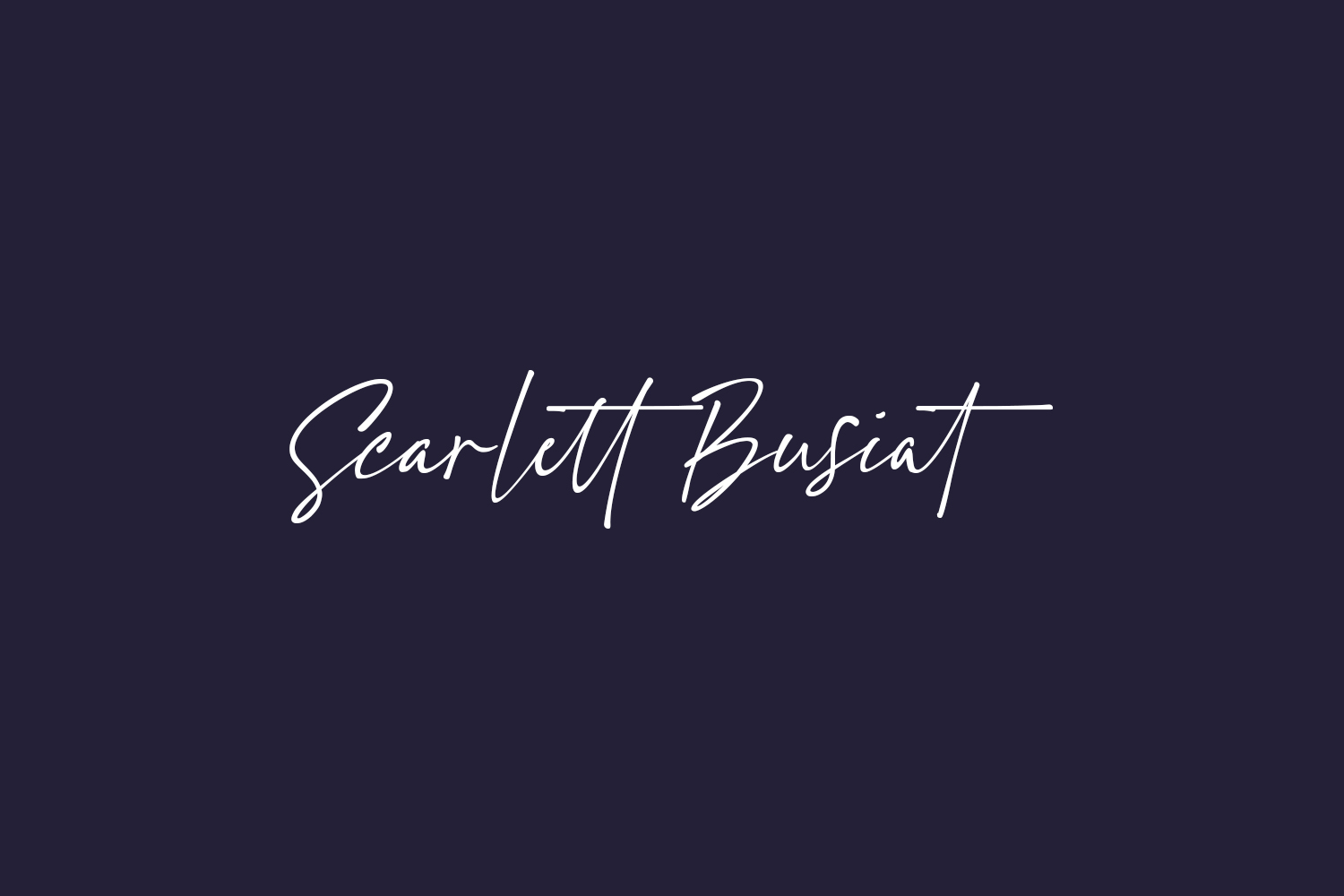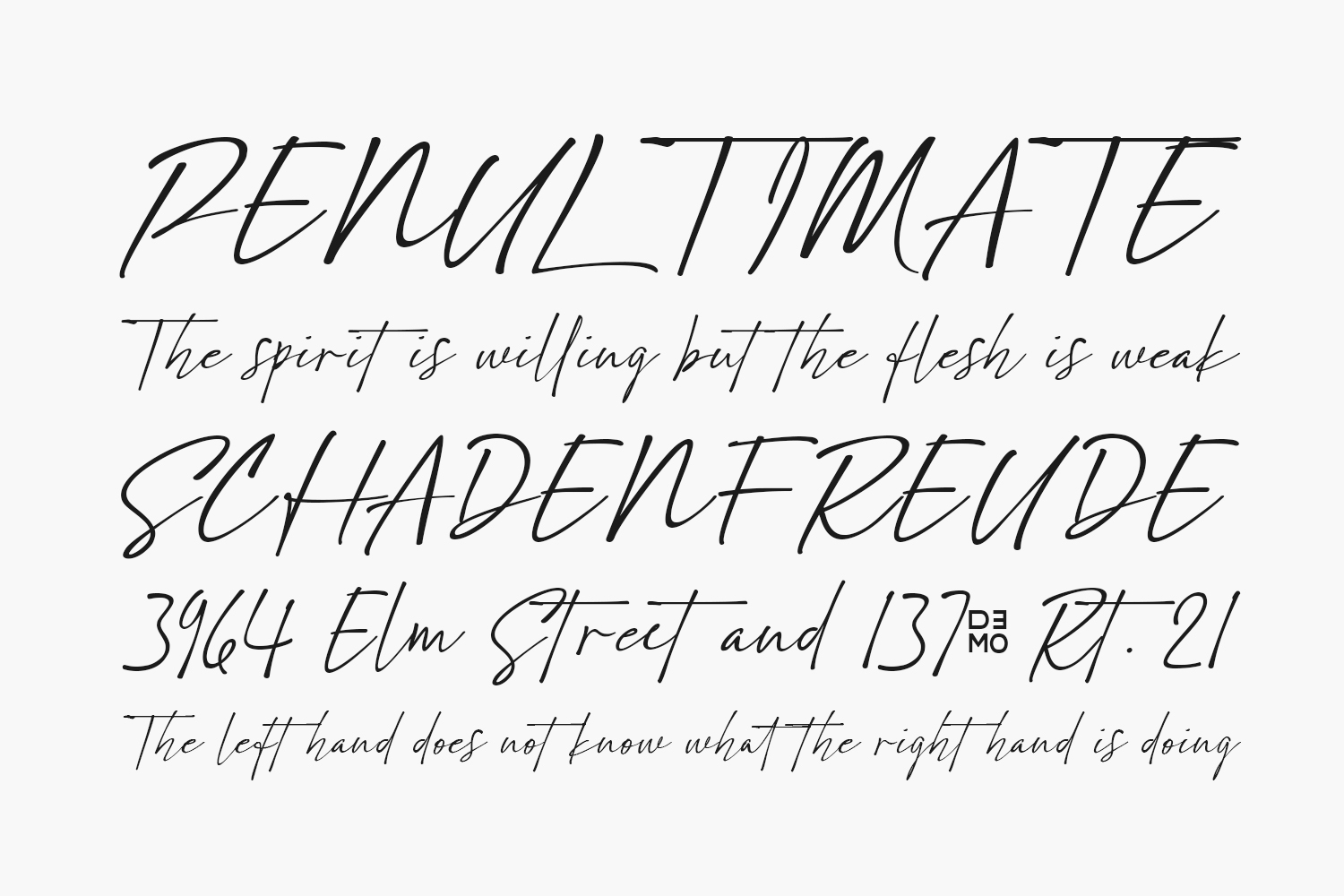
Scarlett Busiat Free Font is a unique and elegant handwritten font. It looks beautiful on a variety of designs requiring a personalized style, such as wedding invitations, thank you cards, weddings, greeting cards, logos, and so on. Scarlett Busiat Free Font was designed by Ketapel Creative and is free for personal use only. Please purchase the full version for commercial use.